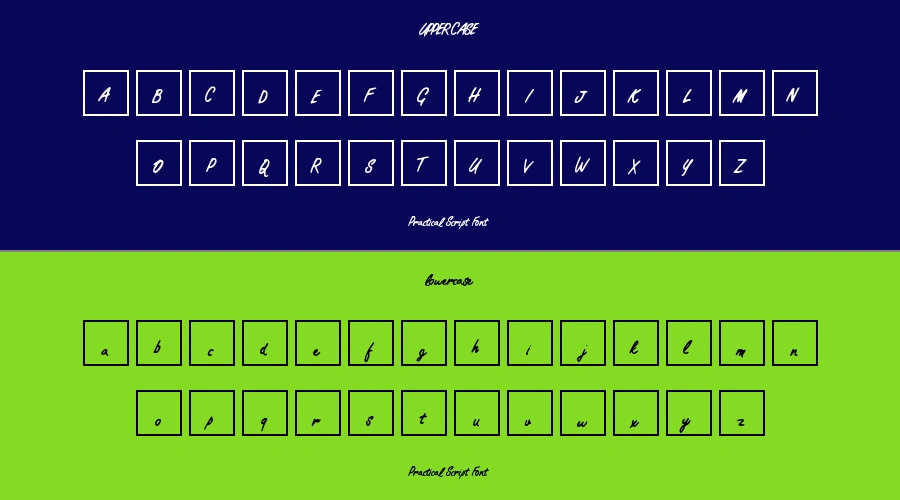
About Practical Script Font
Practical Script Font embodies typographic excellence through its masterful combination of fluid motion and recall value. Created for classic books, this typeface delivers exceptional flexibility and cultural authenticity across all applications. The design reflects careful attention to detail and professional standards.
Advanced capabilities include distinctive elegant curves and versatile discretionary ligatures, giving designers creative control. When used in reference books, Practical Script Font exhibits remarkable scanning accuracy. The harmonious balance between aperture size and emotional appeal sets this typeface apart.